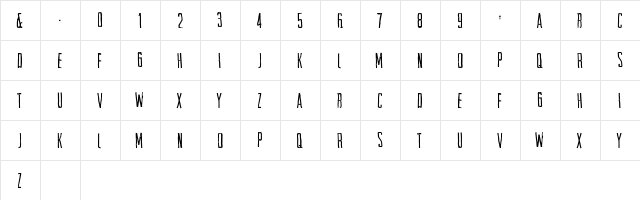
SpaceTransit Regular
Design Context for SpaceTransit Typeface
SpaceTransit offers clean, dependable letterforms without strong stylistic allegiance, making it a practical choice for designers who need flexibility.